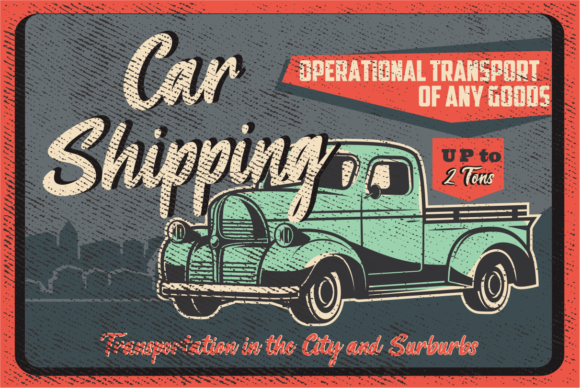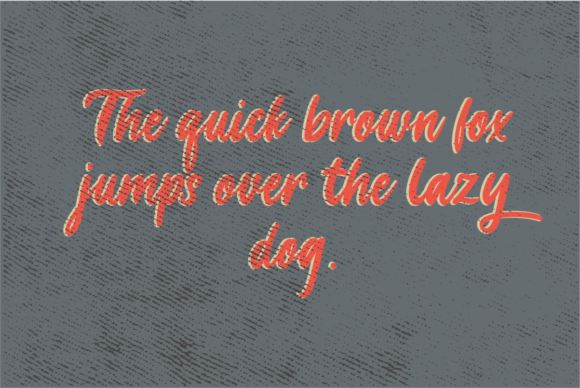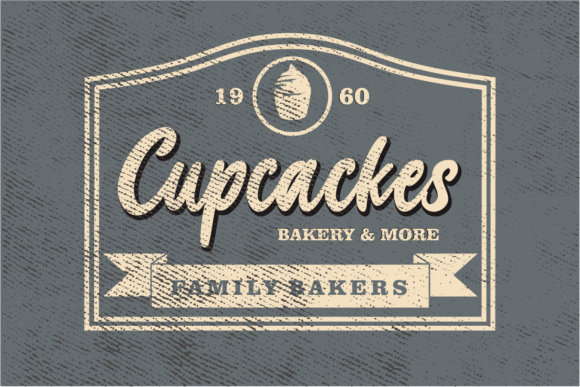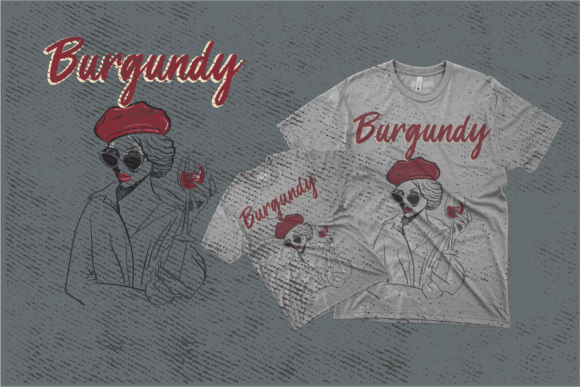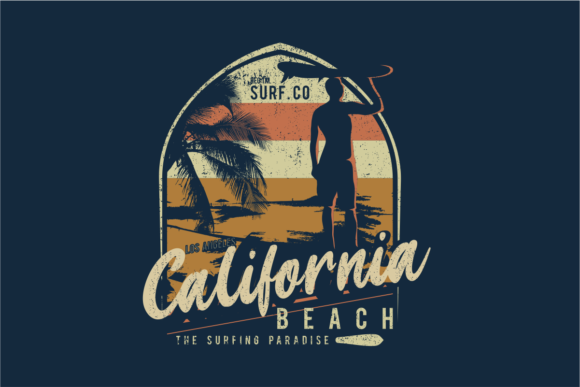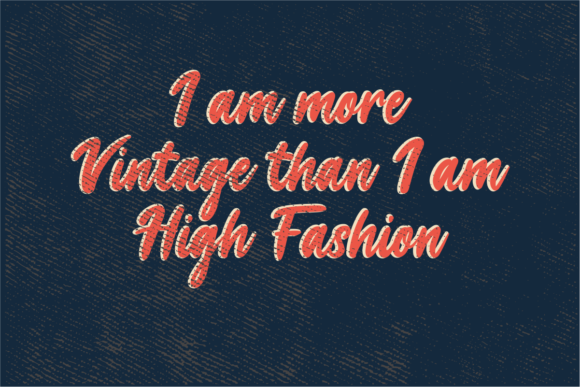
Introducing Cheese Cookies Font: A Playfully Nostalgic Display Font
Are you a designer or crafter looking for a font that captures the essence of nostalgia and playfulness? Look no further than Cheese Cookies Font! This beautifully crafted display font is designed to transport you back to a bygone era, evoking feelings of warmth and familiarity. In this article, we’ll dive into the world of Cheese Cookies Font, exploring its unique features, uses, and benefits for designers and crafters alike.
A Handwritten Style with a Vintage Twist
Cheese Cookies Font is a stunning example of a handwritten display font, expertly crafted to resemble the imperfect, yet charming, qualities of handwritten script. Its unique blend of elegance and playfulness makes it an ideal choice for a wide range of design projects, from branding and packaging to scrapbooking and DIY crafts.
With Cheese Cookies Font, you’ll be able to add a touch of nostalgia to your designs, instantly conveying a sense of warmth and approachability. Whether you’re looking to create a retro-inspired logo, a vintage-style poster, or a heartfelt handmade card, this font is sure to become your go-to choice.
Key Features of Cheese Cookies Font
- Playfully Nostalgic: Cheese Cookies Font is designed to evoke a sense of nostalgia and playfulness, making it perfect for designs that require a touch of whimsy and charm.
- Handwritten Style: This font boasts a beautifully crafted handwritten style, complete with subtle imperfections and variations that give it a uniquely human feel.
- Display Font: Cheese Cookies Font is specifically designed as a display font, making it ideal for use in headlines, titles, and other prominent design elements.
- Vintage Inspiration: This font draws inspiration from classic vintage designs, ensuring that your projects will have a timeless, retro feel.
Uses for Cheese Cookies Font
Cheese Cookies Font is an incredibly versatile font that can be used in a wide range of design projects, including:
- Branding and Packaging: Add a touch of nostalgia to your brand identity with Cheese Cookies Font, perfect for creating eye-catching logos, labels, and packaging.
- Scrapbooking and Journaling: This font is a dream come true for scrapbookers and journalers, allowing you to add a personal, handwritten touch to your pages.
- DIY Crafts: Use Cheese Cookies Font to create beautiful, handmade cards, gift tags, and other DIY crafts that are sure to delight.
- Graphic Design: This font is perfect for graphic designers looking to add a touch of whimsy and personality to their designs, from posters and flyers to social media graphics and more.
So why choose Cheese Cookies Font for your design projects? Here are just a few benefits you can expect:
- Unique and Eye-Catching: Cheese Cookies Font is a one-of-a-kind font that will help your designs stand out from the crowd.
- High-Quality: Cheese Cookies Font is a high-quality font, carefully crafted to ensure that it looks amazing in any design.
- Versatile: This font can be used in a wide range of design projects, making it a valuable addition to any design library.
In conclusion, Cheese Cookies Font is a playfully nostalgic display font that is sure to capture the hearts of designers and crafters alike. With its unique handwritten style, vintage inspiration, and versatility, this font is perfect for a wide range of design projects. Whether you’re looking to add a touch of nostalgia to your branding, create a beautiful handmade card, or simply add some personality to your graphic design, Cheese Cookies Font is the perfect choice. So why wait? Download Cheese Cookies Font today and start creating your own nostalgic masterpieces!